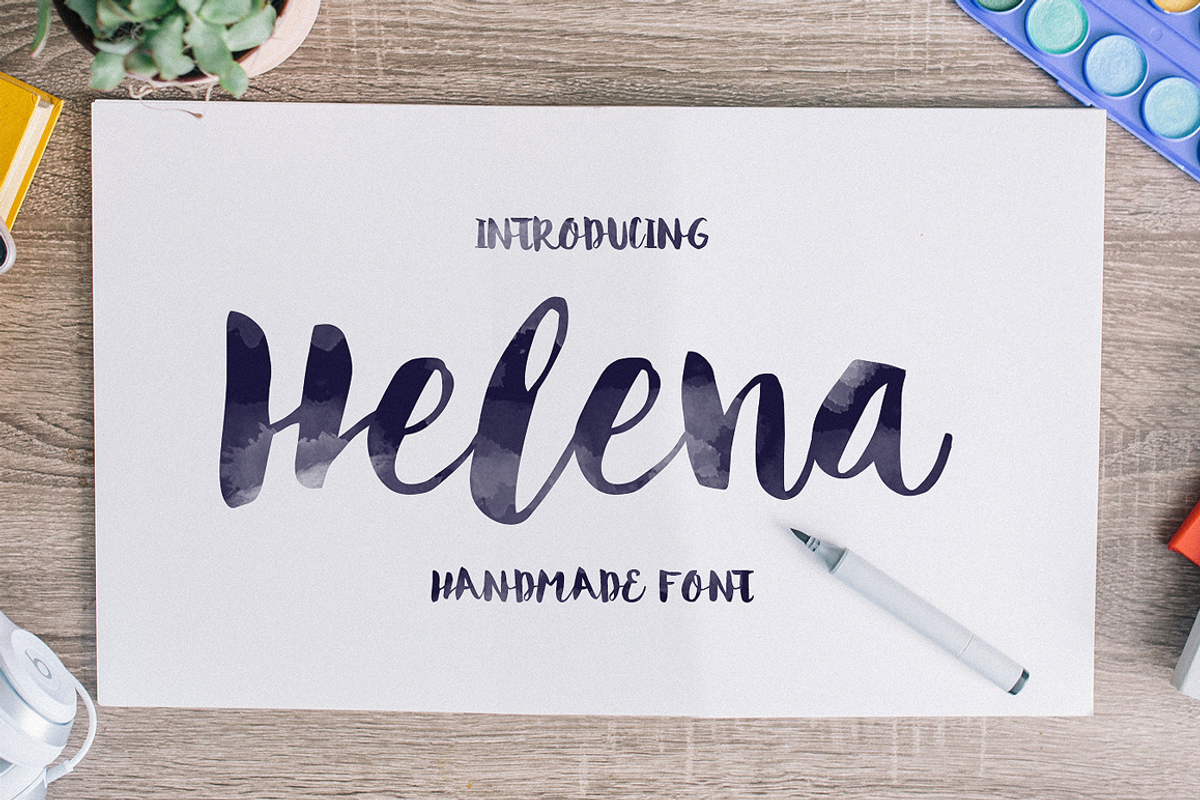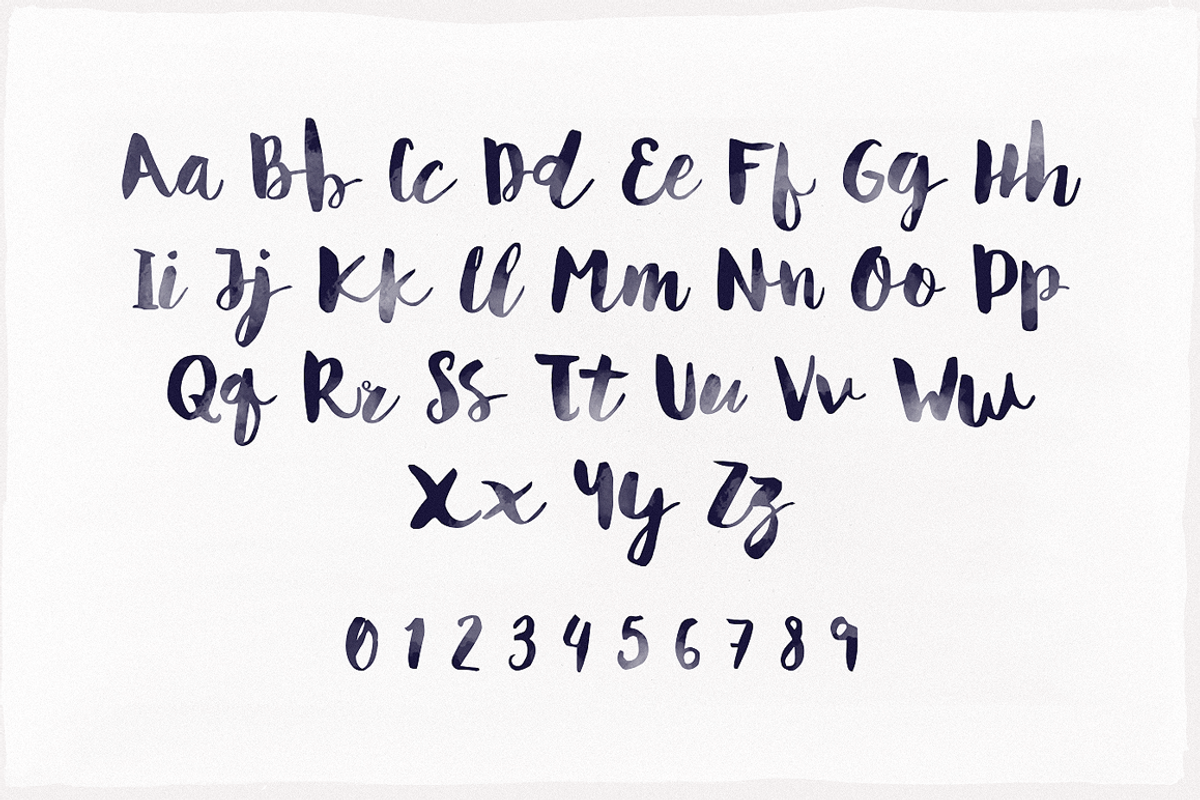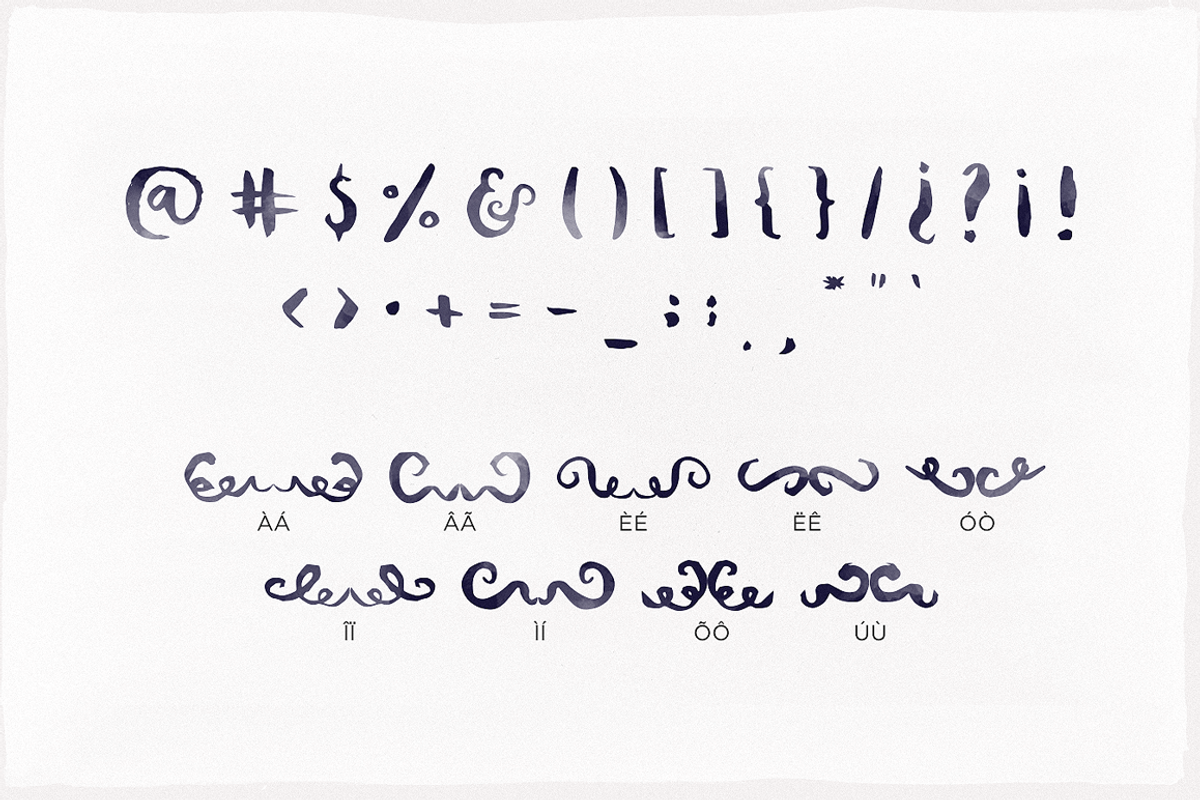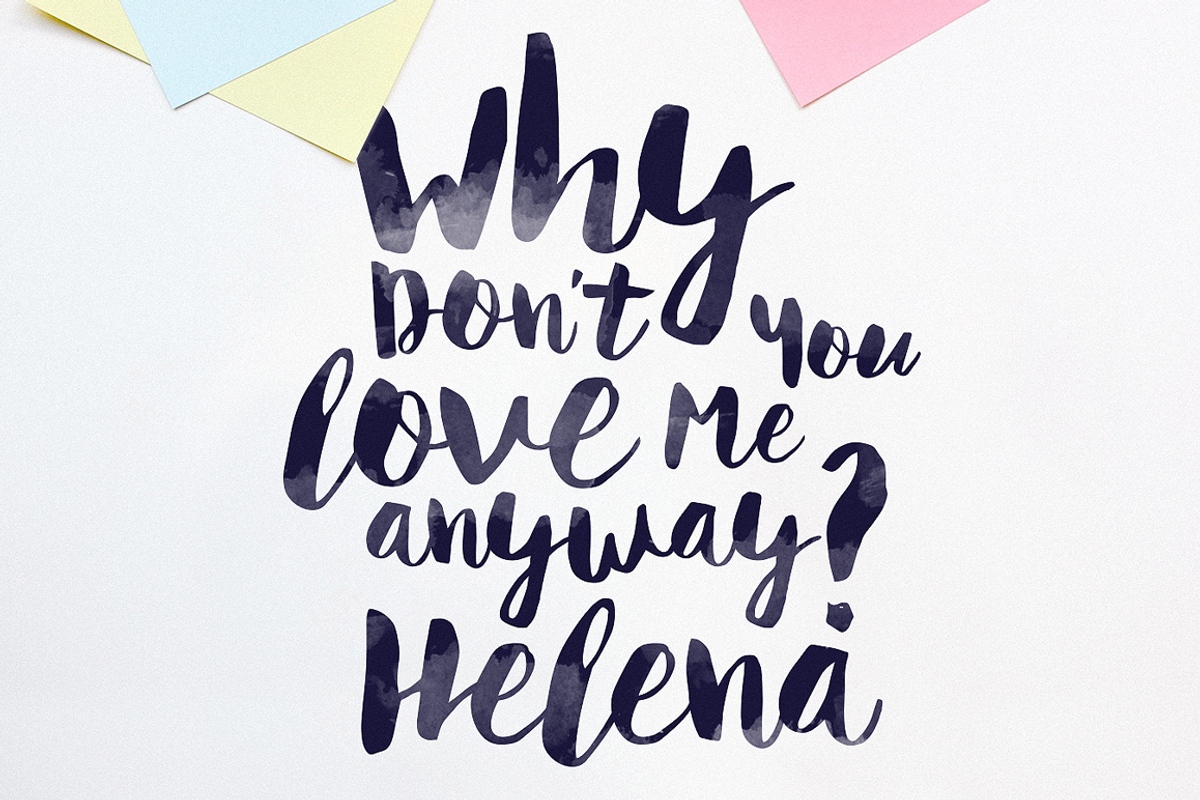
Helena — Script Font
Give your designs an authentic handcrafted feel. Helena is perfectly suited to stationery, logos and much more.
- 9 Ornaments (Left & Right side)
- Ornament characters: ÀÁ ÂÃ ÈÉ ËÊ ÓÒ ÎÏ ÌÍ ÕÔ ÚÙ